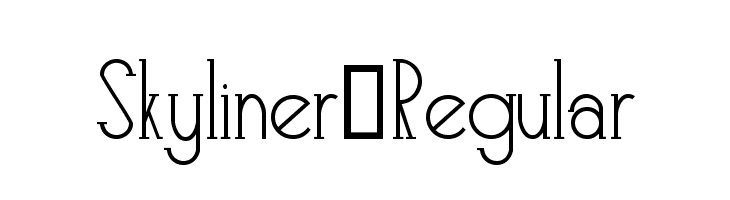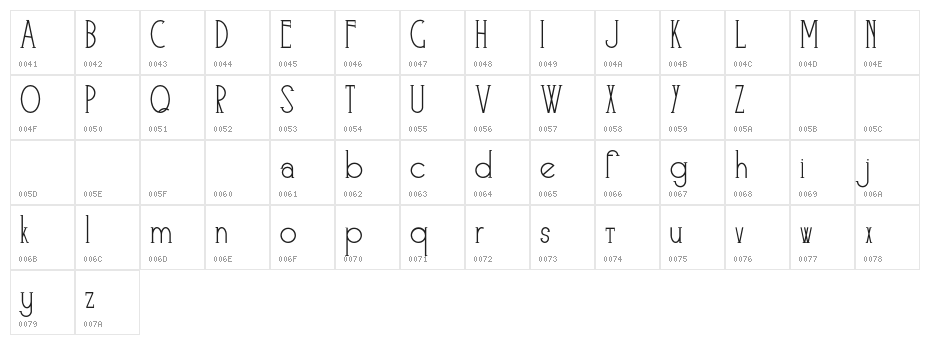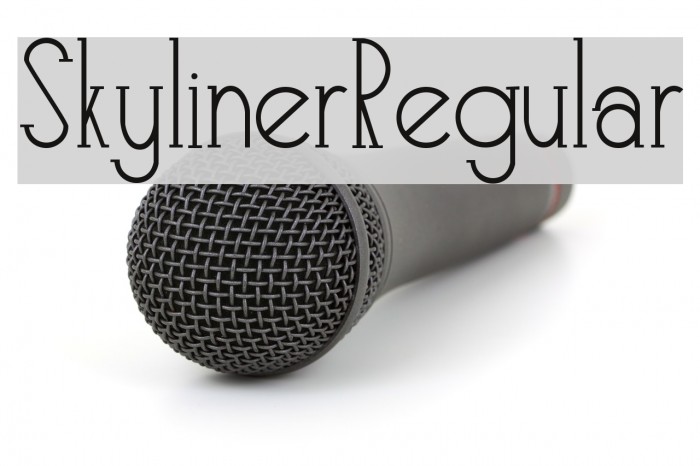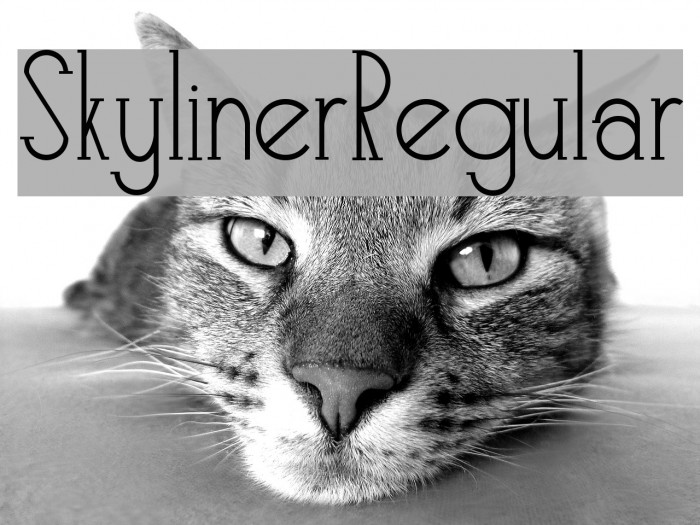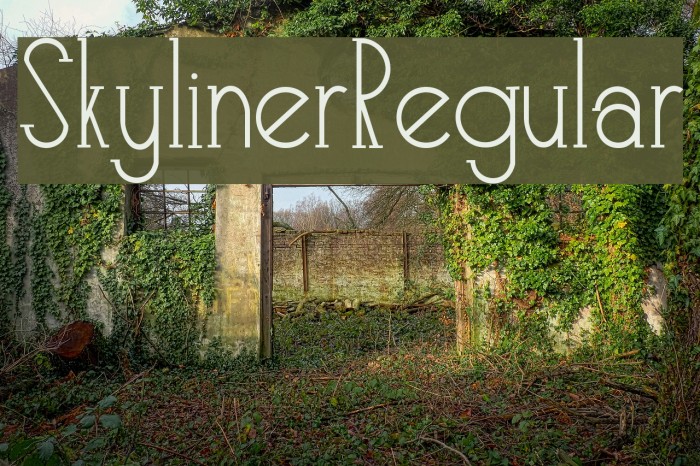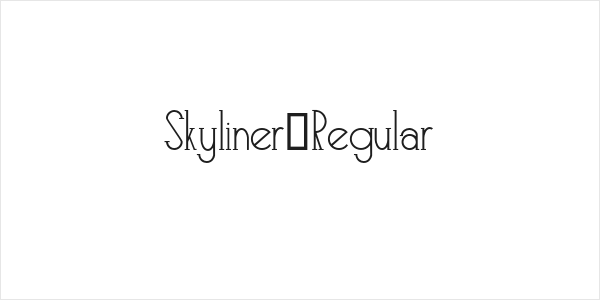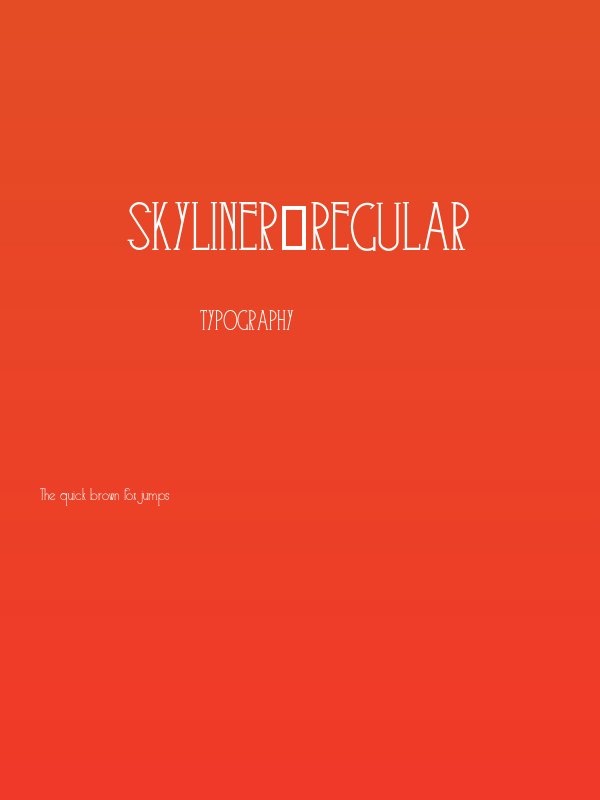
Skyliner-Regular Font
✎ Art Deco
Skyliner-Regular Description
This font features a tall, elegant design with a modern twist. The uppercase letters are elongated and slender, giving a sophisticated and stylish appearance. The lowercase letters maintain a consistent height, complementing the uppercase with a more rounded and approachable look. The overall design is clean and minimalistic, with a slight art deco influence visible in the geometric shapes and sharp angles. The font's structure is balanced, with a harmonious blend of straight lines and subtle curves, making it versatile for various design applications.
| Overall Style | Modern, Art Deco |
| Proposed Projects | Ideal for branding, editorial design, posters, and invitations where a touch of elegance and modernity is desired. |